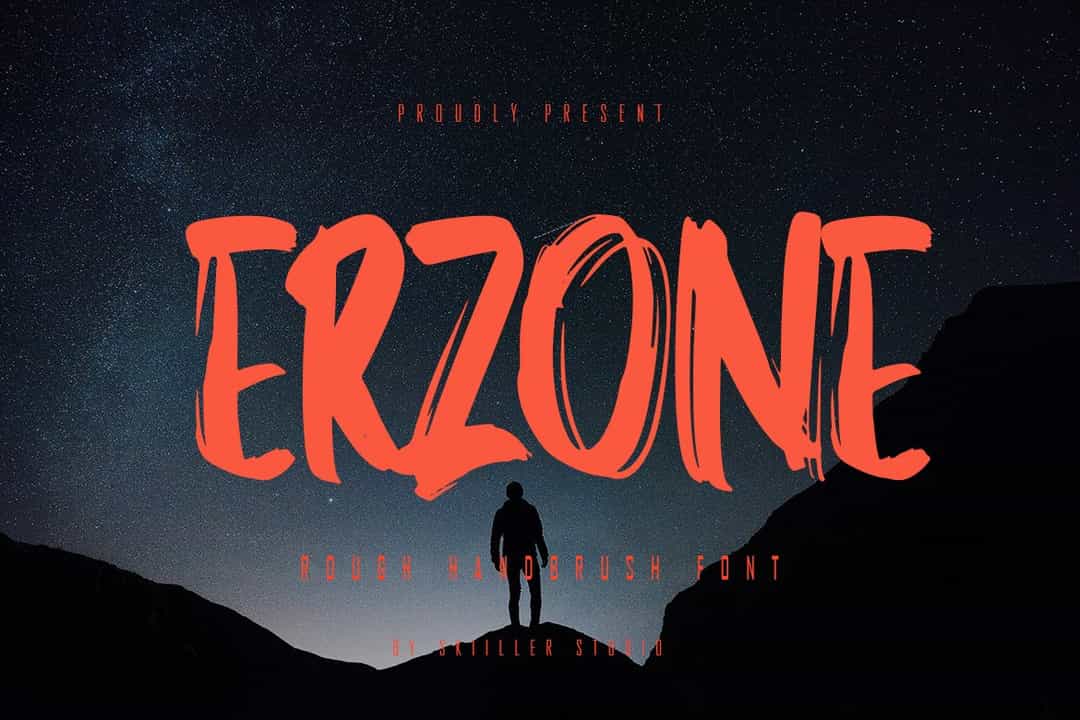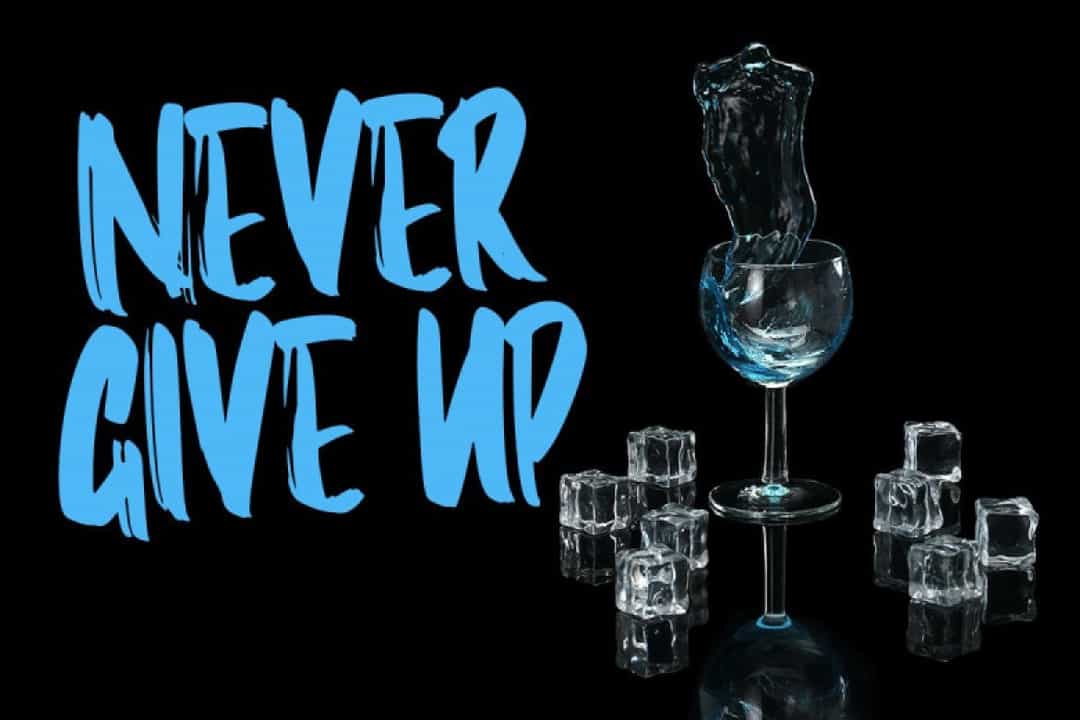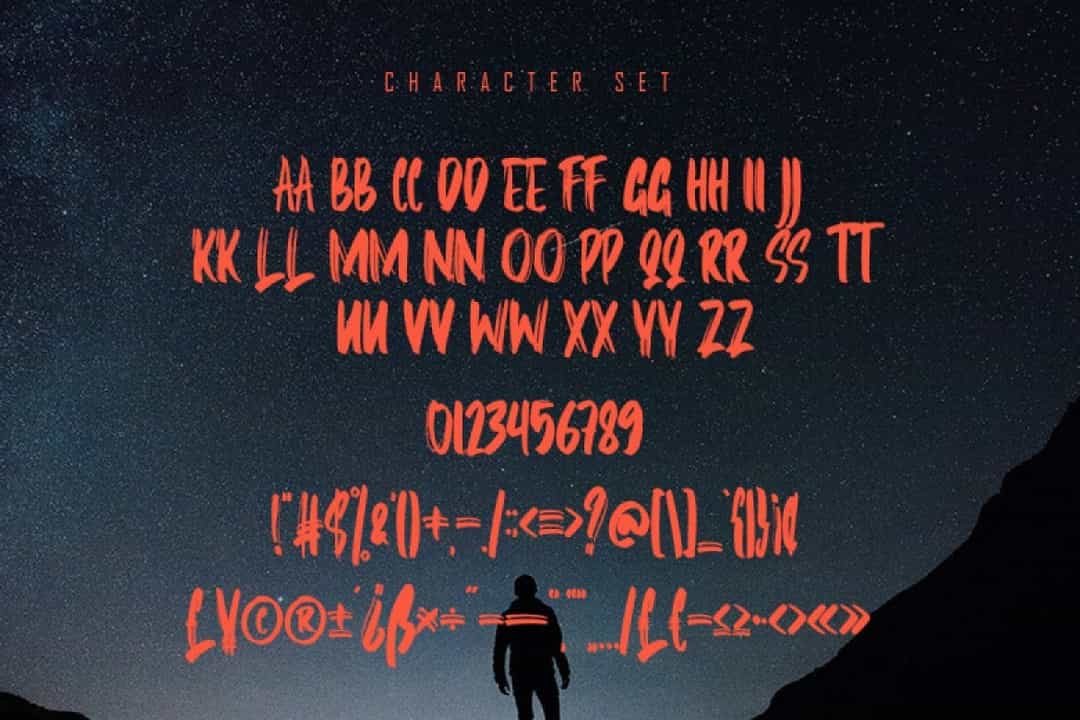
Erzone Brush Script font was inspired by the natural typography of brushes. Drawn quickly using a brush pen, this font looks authentic but remains dry; perfect for magazine and commercial use – designs, logos for offers or headlines as well as packaging for products; posters; merchandise; social media; greeting cards etc.